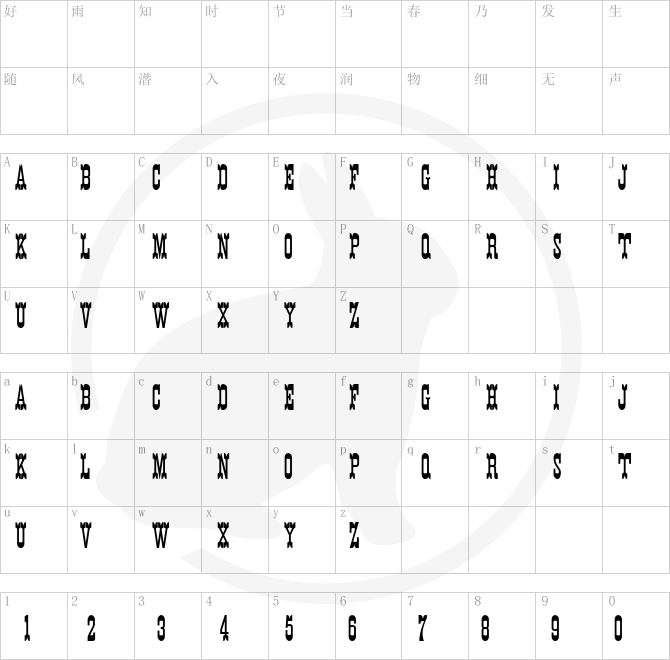
- Font Name:K22 Eureka NoFrills
K22-Eureka-NoFrills.ttf is a very beautiful artistic font, K22-Eureka-NoFrills.ttf is widely used in the design and printing of various books and pictures,K22-Eureka-NoFrills.ttf has a strong visual impact,K22-Eureka-NoFrills.ttf is a commonly used font in newspapers, magazines and books, and is used in posters, e-commerce Poster design, store design, logo design, font design and other fields.K22-Eureka-NoFrills.